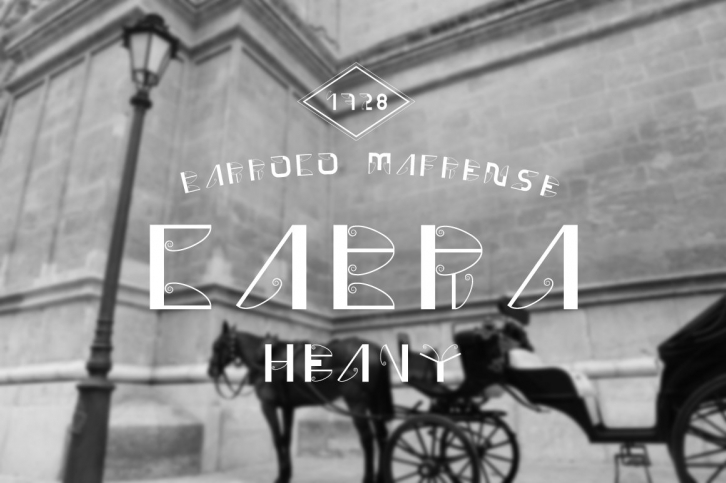
Inspired by one of the most emblematic monuments of Portugal, Coimbra University Tower, Cabra is the nickname of this tower and the name that represents this typographic family. Cabra is geometric and serif with a classic style. The lighter weights assume the geometric architecture of the tower, while the thicker weights determine the strength and expression of typography. This power supply is designed primarily for use in headings, subheadings and identity image.
Cabra includes 5 weights, in which one of the weights presents the original source dash with a deconstruction in the finest ornament letter, creating a paradox with the main font and a metaphor according to the clock tower.